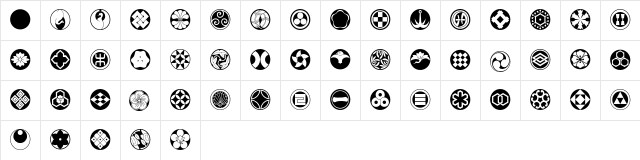
EdoFont Regular
Design Context for EdoFont Typeface
EdoFont is a composed and adaptable typeface that performs quietly and consistently across a wide range of design contexts.